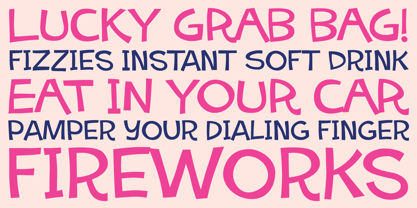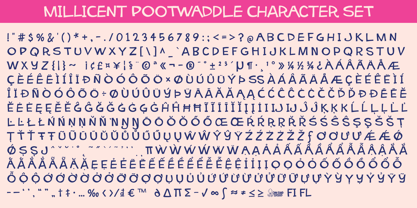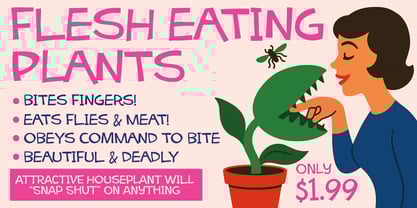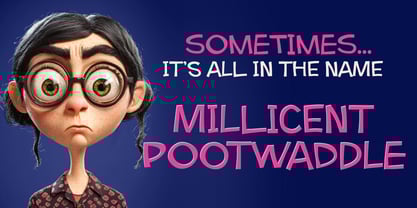
Millicent Pootwaddle
by One Eyed Squid
The Millicent Pootwaddle Font Family was designed by Brian J. Bonislawsky, Dave Cohen and published by One Eyed Squid. Millicent Pootwaddle contains 1 styles.
Millicent Pootwaddle is a daft, quirky display font with a silly personality, offbeat charm, and an awkwardly endearing presence. Its playful letterforms bring a whimsical and unconventional voice to designs that want to feel lively, humorous, and full of character. Ideal for headlines, posters, branding, packaging, greeting cards, invitations, social media graphics, and other creative projects that benefit from a fun, eccentric typographic style, Millicent Pootwaddle adds memorable personality with a lighthearted twist. Includes extended Latin language support, including Vietnamese.
Dave "Squid" Cohen & Brian "Stiggy" Bonislawsky combine their fontmaking talents to bring you an array of fun and entertaining typefaces loaded with animated and diverse retro flavor.You may know Dave Cohen's fonts from Sideshow and Neapolitan type foundries, as you may know Brian Bonislawsky's fonts from Astigmatic (AOETI), Grype, Pink Broccoli, Monogram Fonts Co., Stiggy & Sands, and VersusTwin type foundries.So what is this foundry all about? It's all about bringing collaborative skills to bear to express more of their crazy typographic ideas and create even more exciting fonts to the design community.